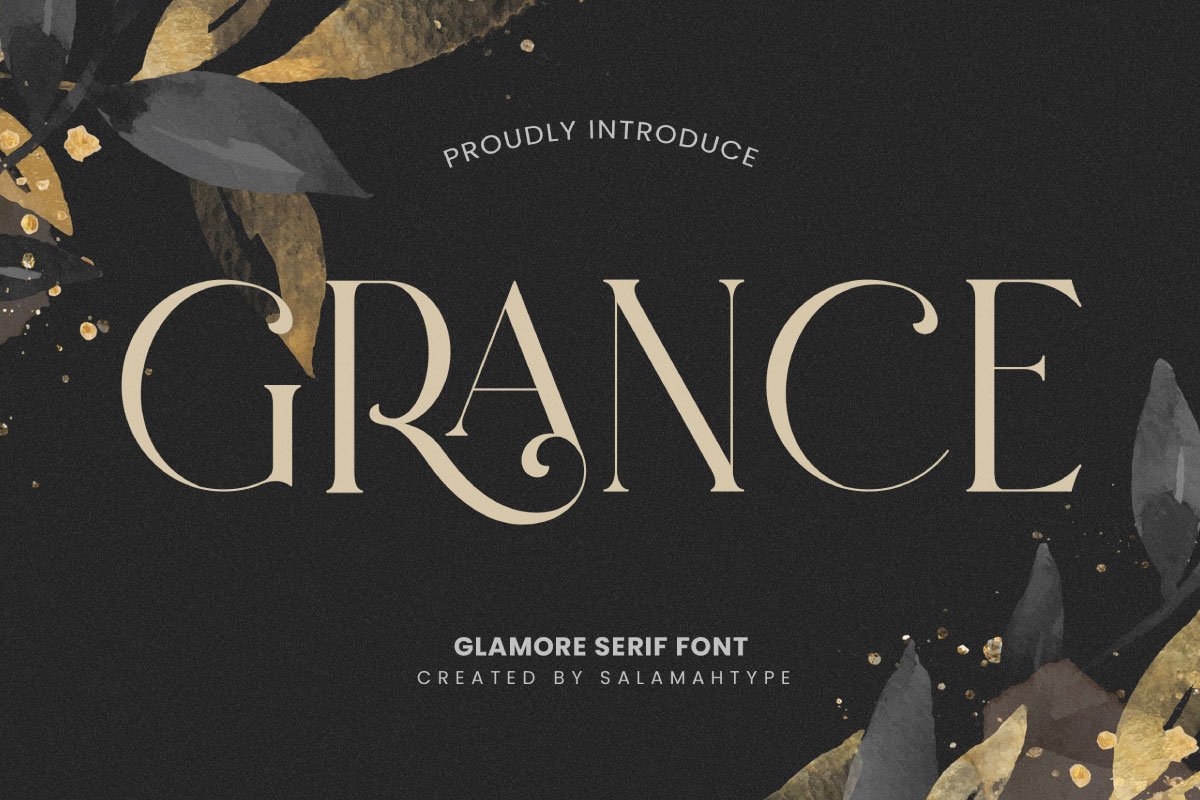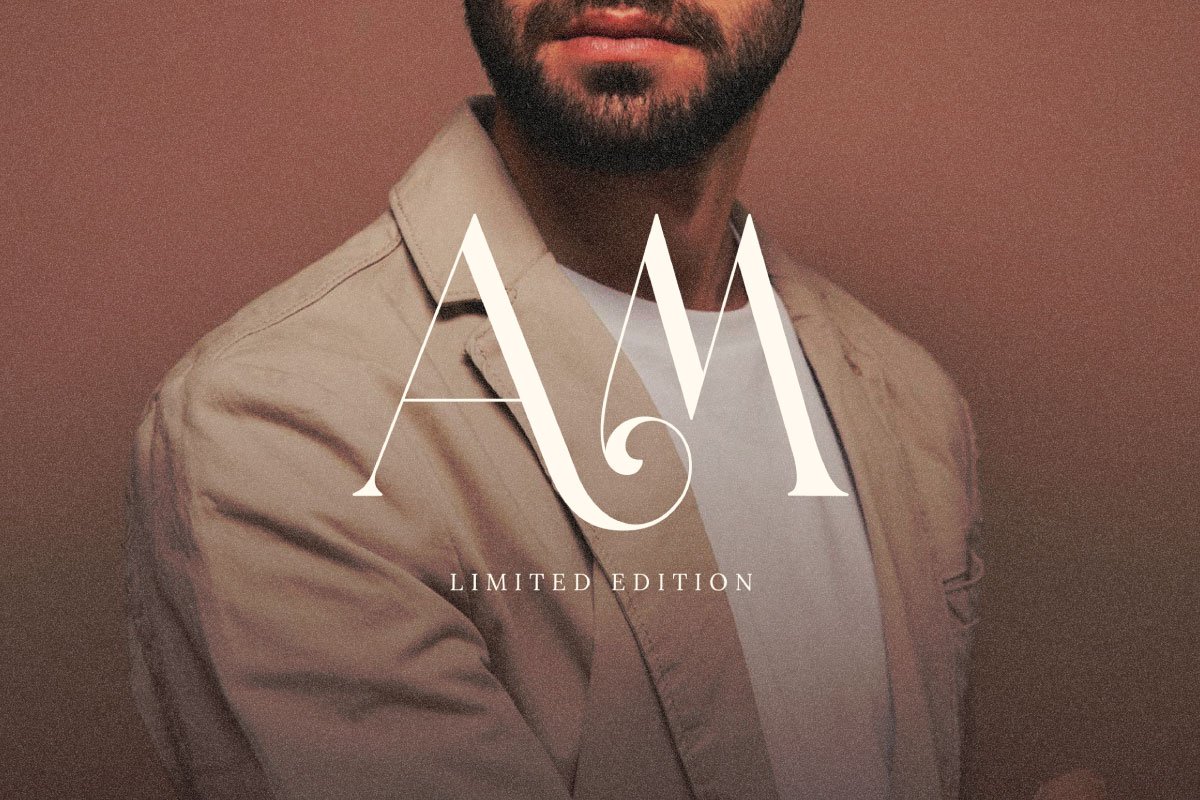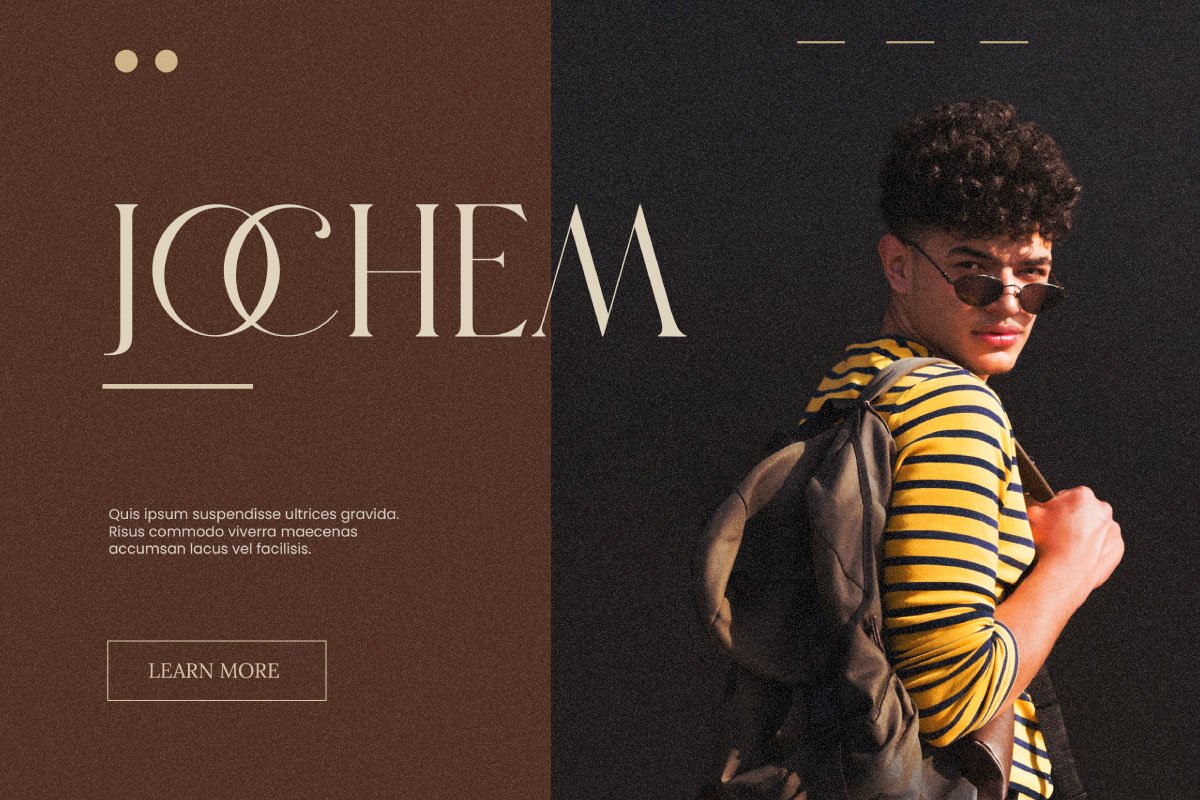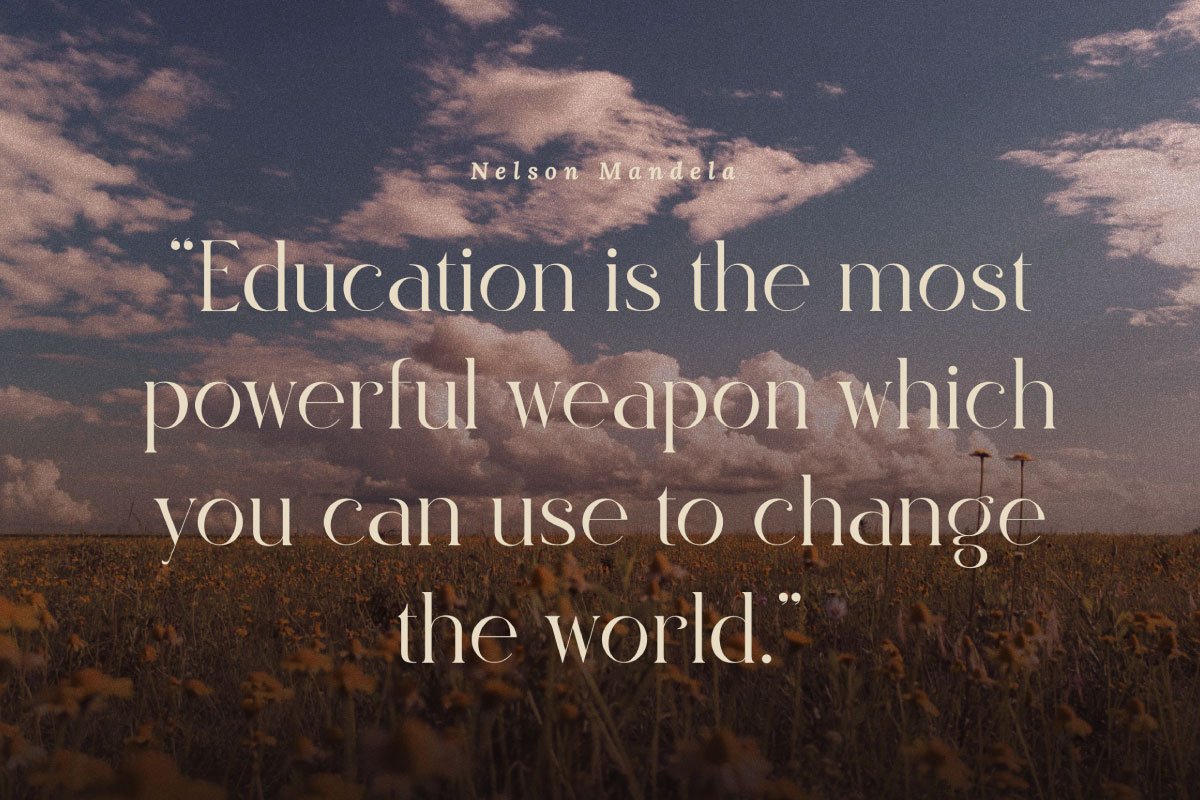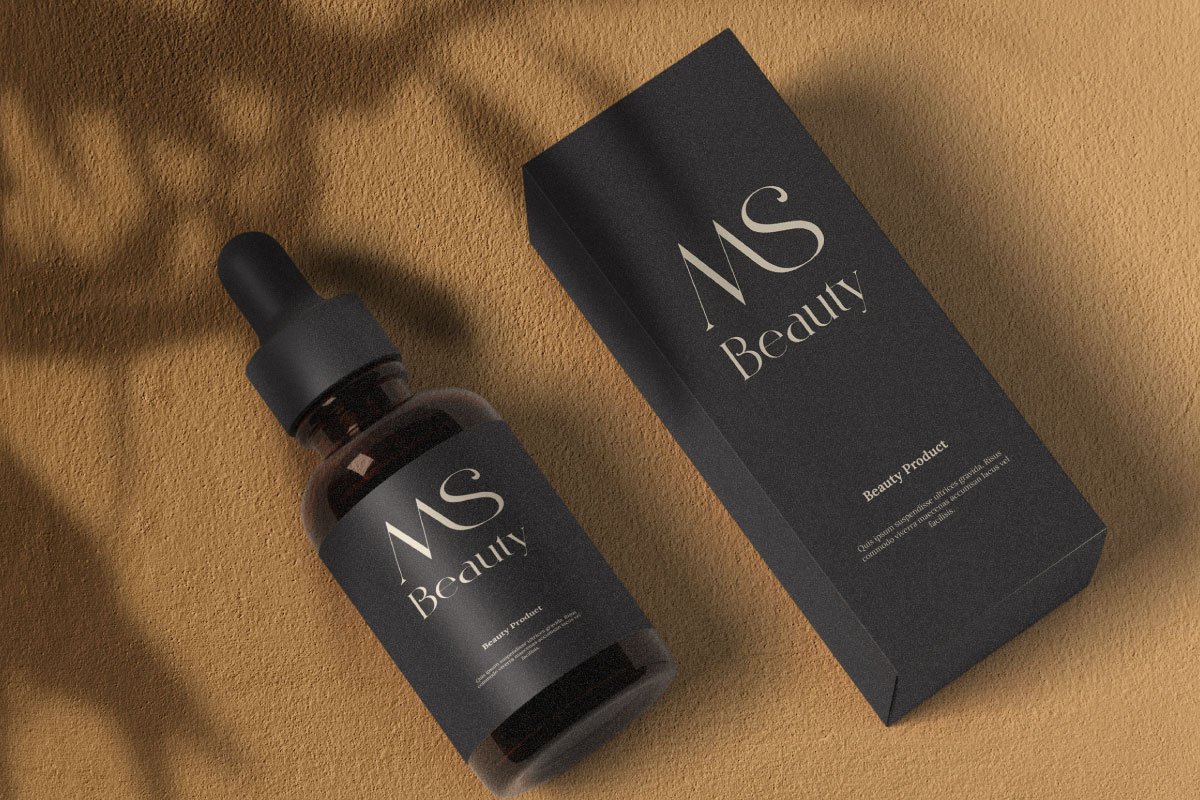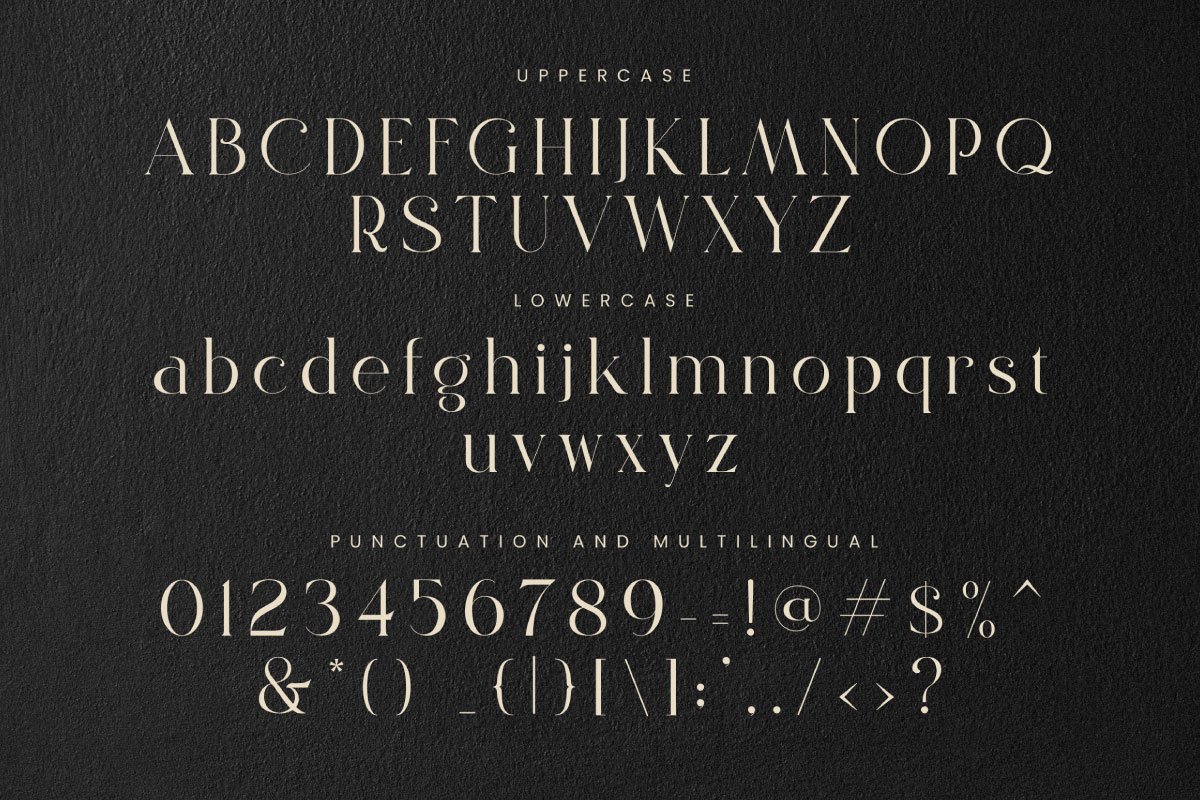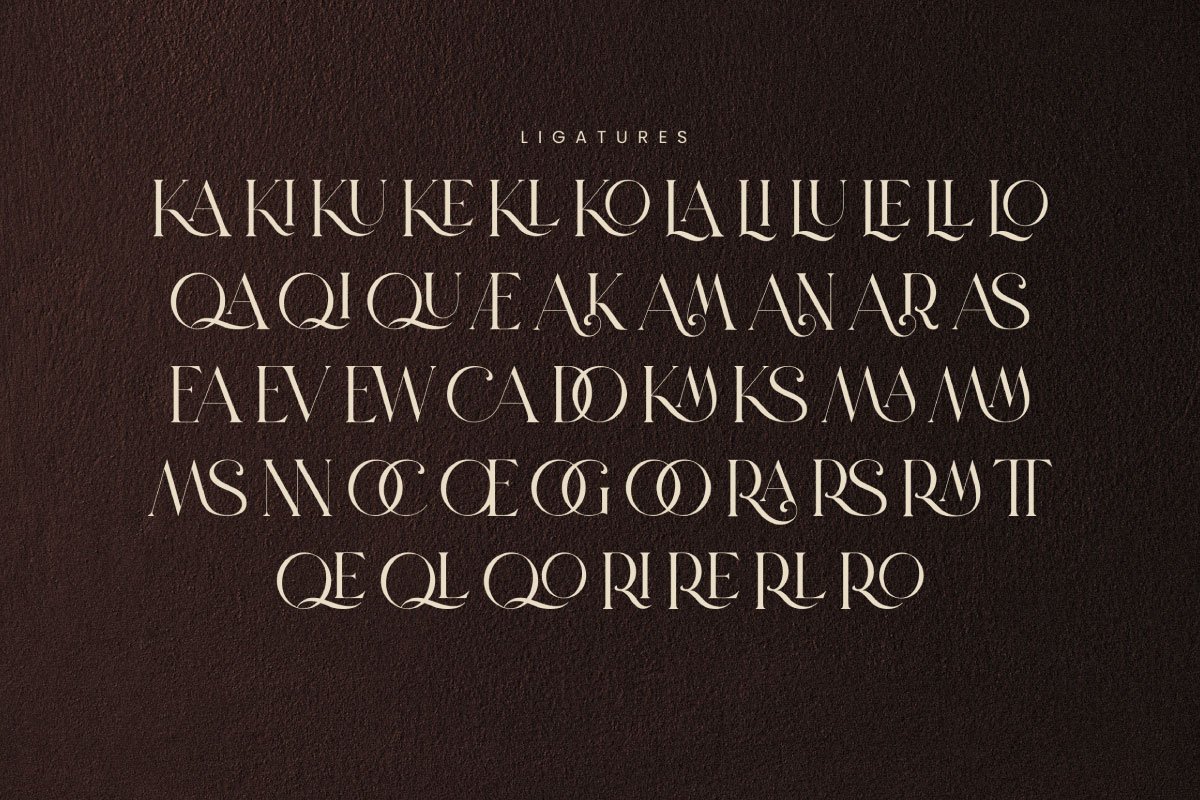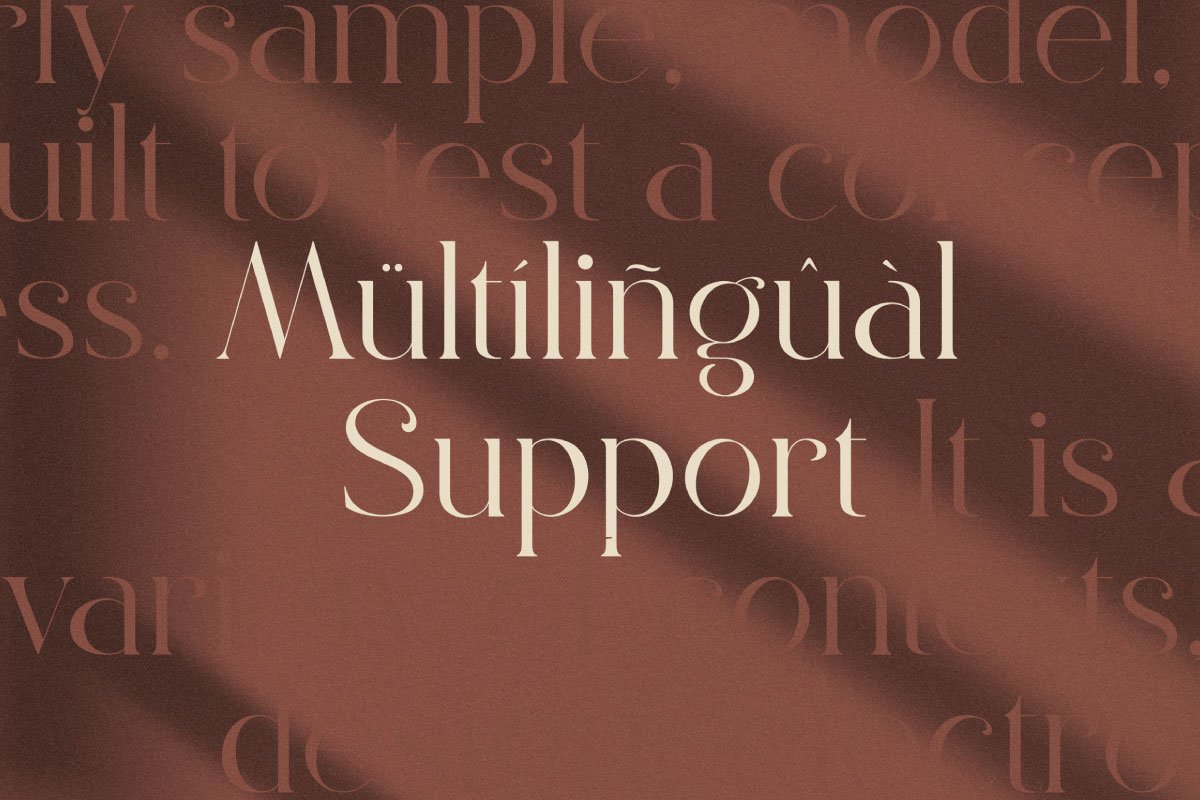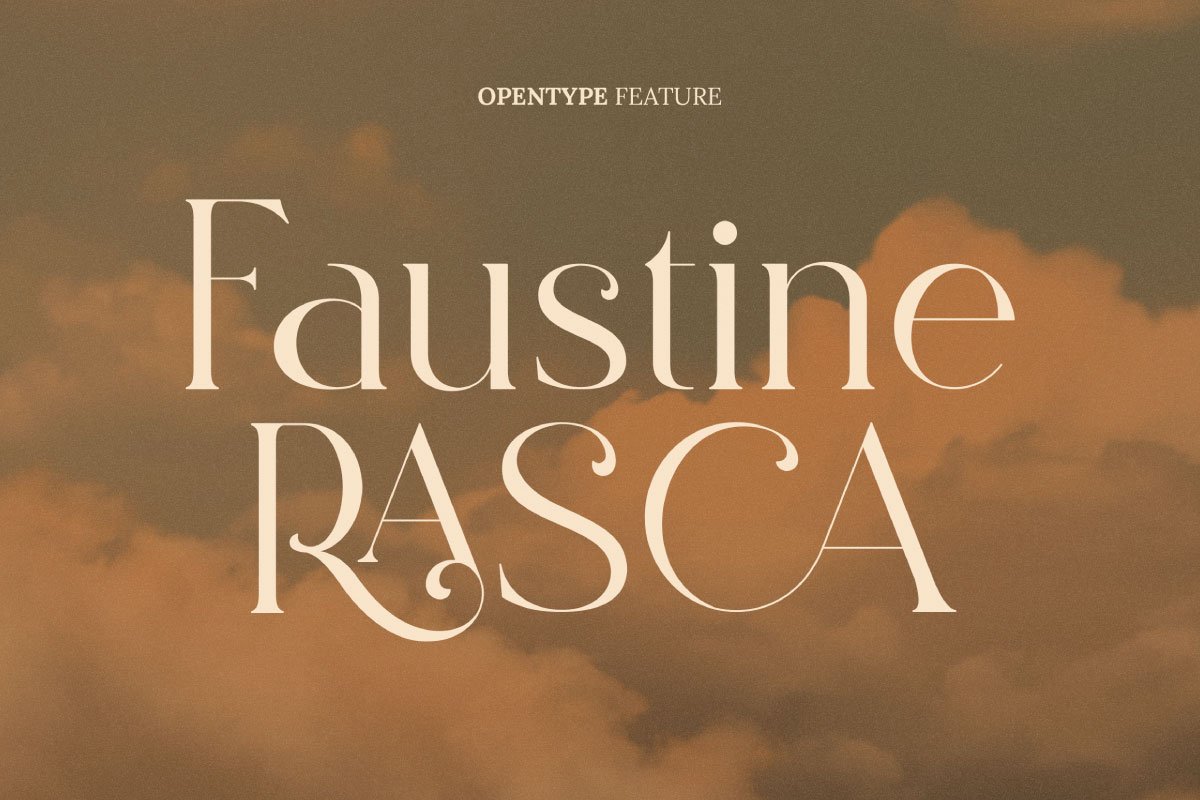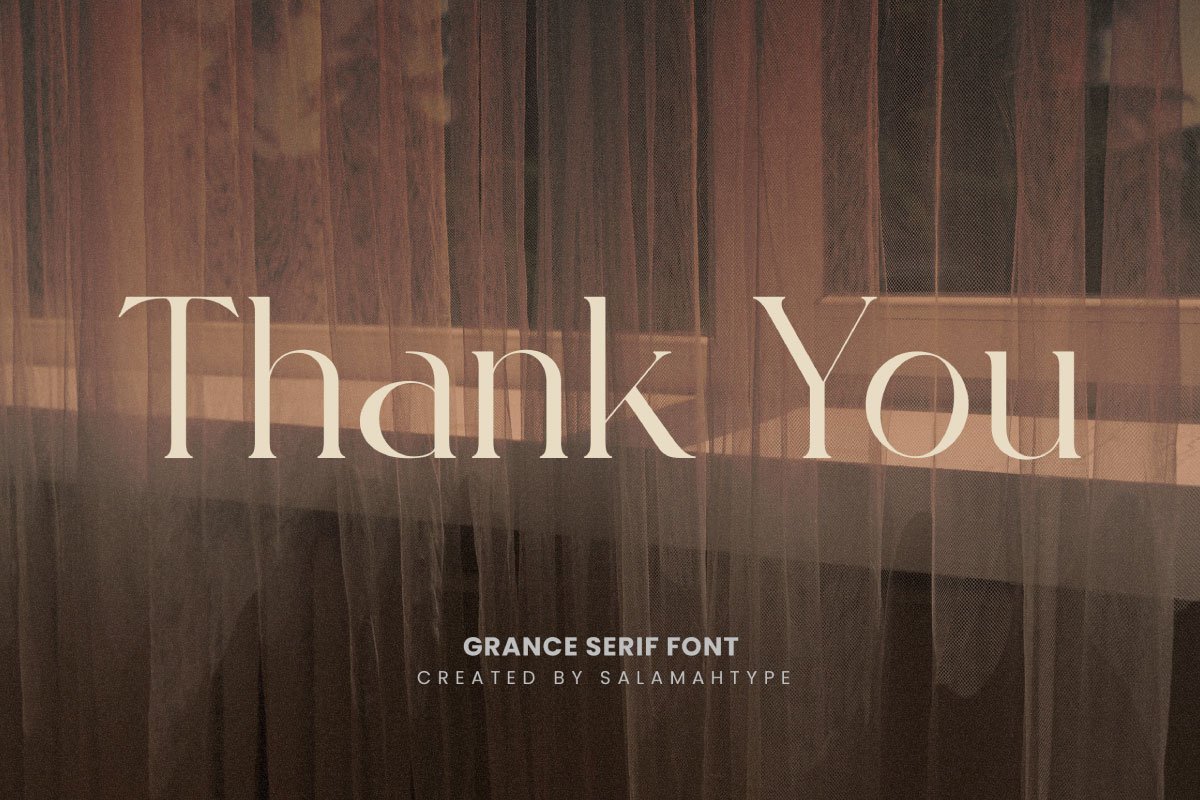
- Uppercase & lowercase
- Punctuation & symbol
- 40+ Ligatures
- Multilingual characters
GRANCE - Elegant Serif
Introducing our new serif called "GRANCE" - An elegant serif typeface with a luxurious and clean style is perfect for websites, modern logos, brand identities, social media quotes, wedding, stationery and anything you want!"GRANCE" Features :